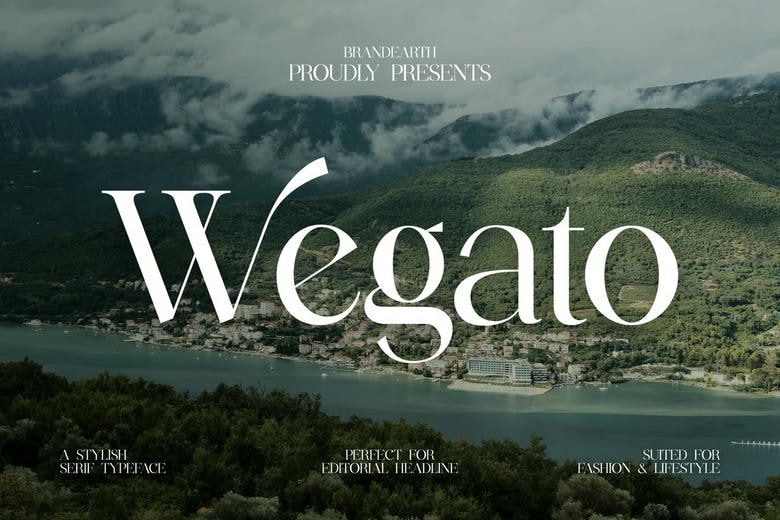
Wegato Font
Wegato is a refined serif typeface that combines modern elegance with high versatility, making it ideal for premium editorial layouts, luxury packaging, fashion campaigns, and creative branding. With a full character set, stylish ligatures, and multilingual support, Wegato ensures your design projects make a bold yet sophisticated statement across both digital and print platforms.
Wegato Serif Font